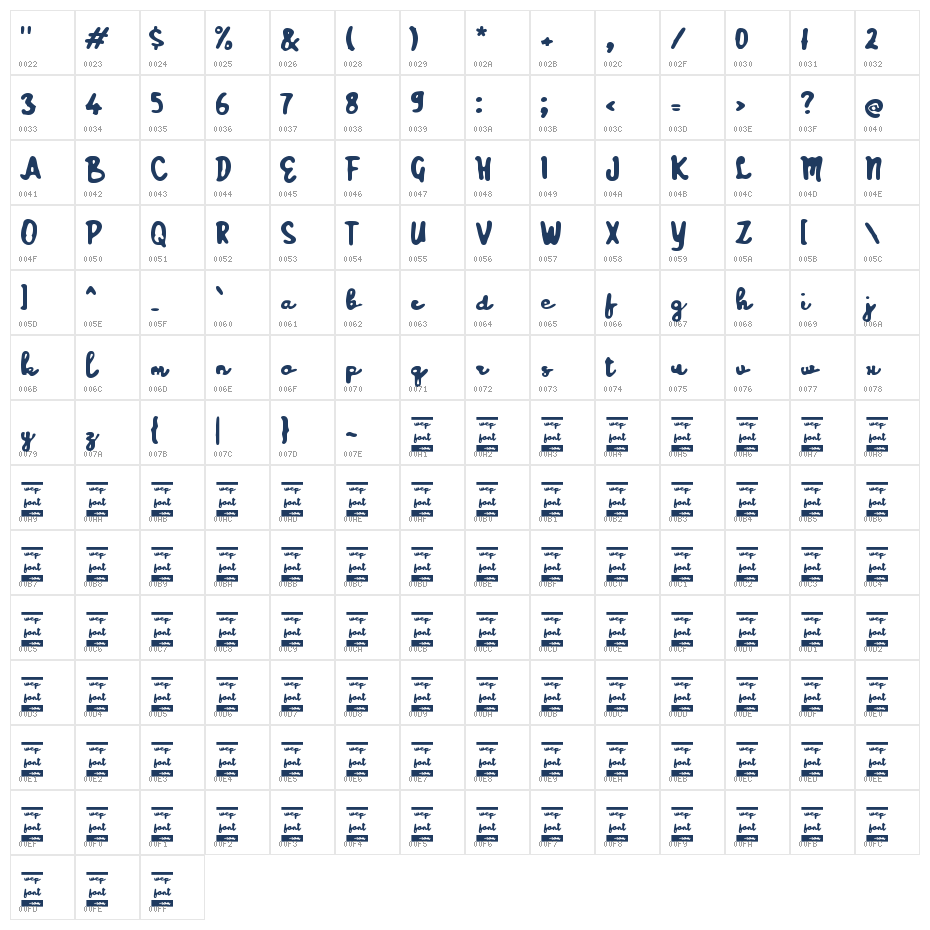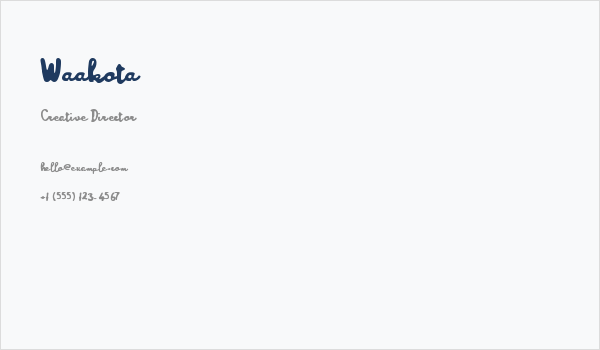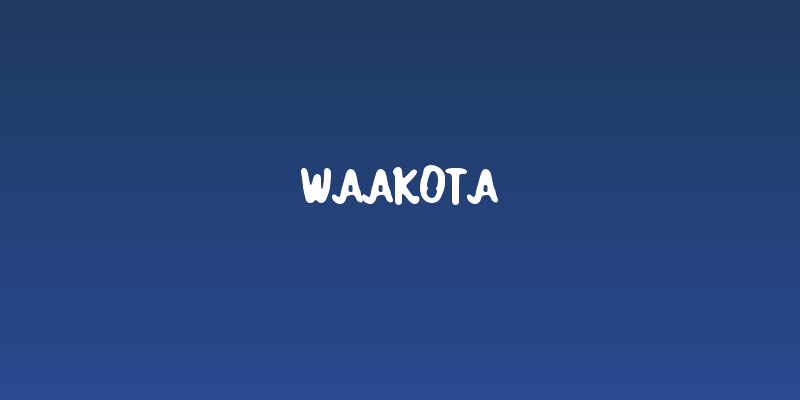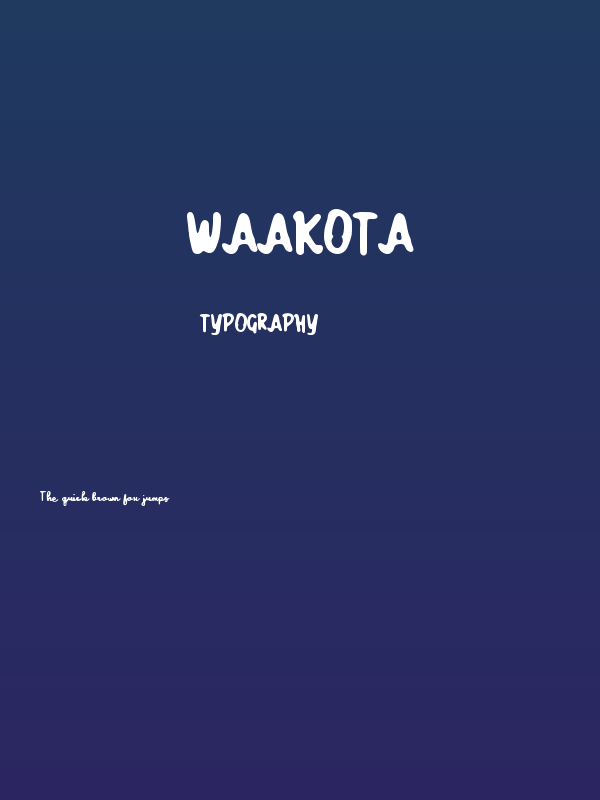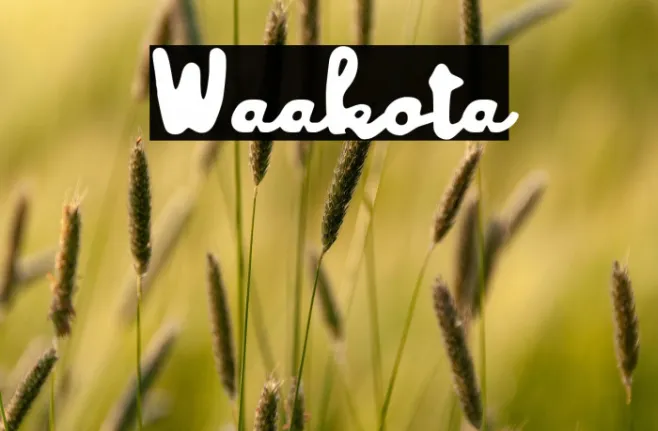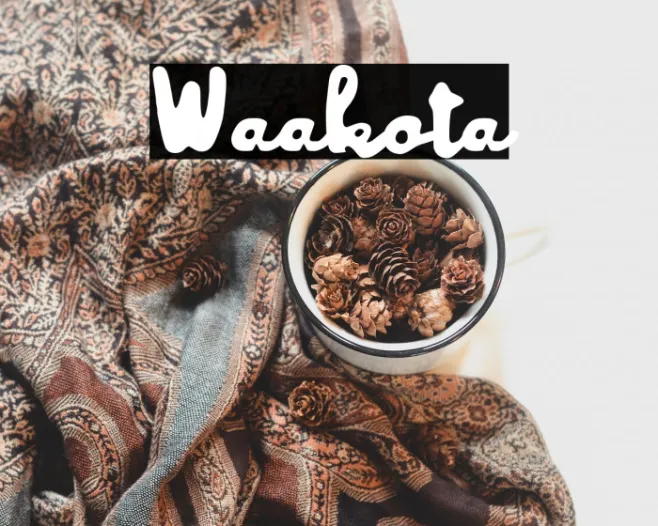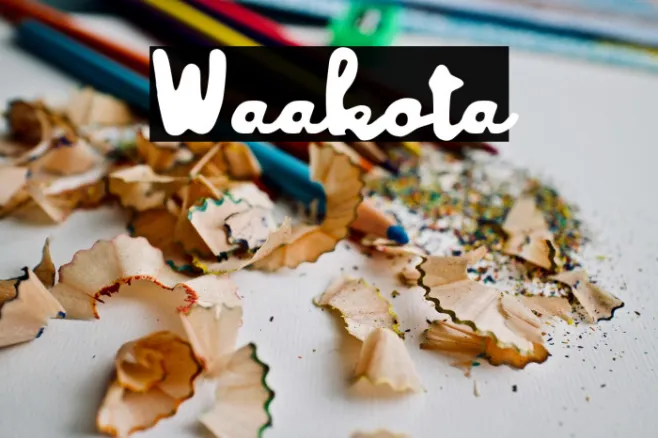
Waakota Font
Waakota Description
A playful, rounded, handwritten style font with a casual and friendly appearance.
| Overall Style | Casual, Playful, Friendly |